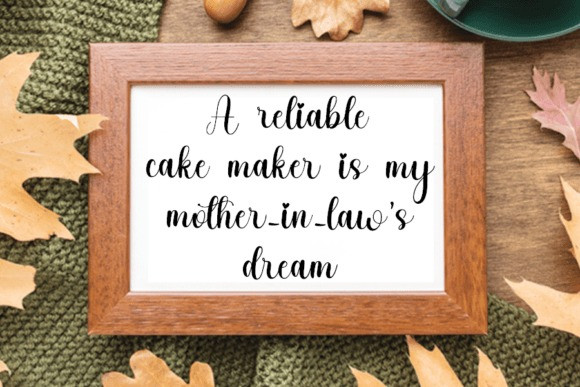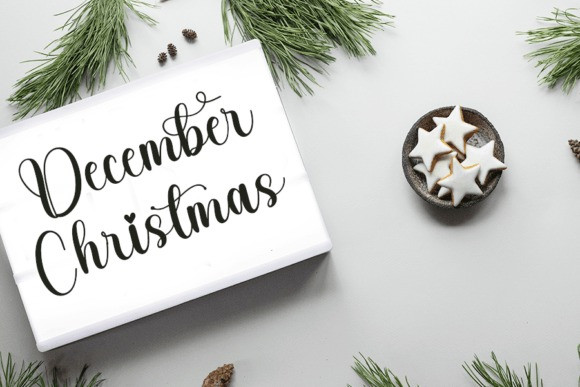
Barley Font
Barley Font is a beautiful and refined handwritten font. Classy and modern, it is perfect for logos, branding, invitations, stationery, wedding designs, social media posts, and much more!